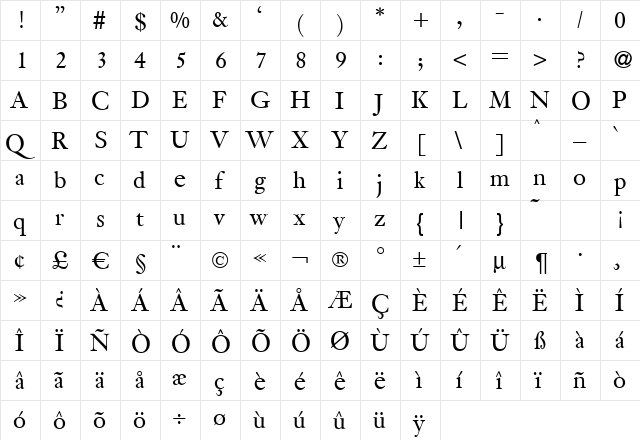
Jacobite Regular
Design Context for Jacobite Typeface
Jacobite is a composed and adaptable typeface that performs quietly and consistently across a wide range of design contexts.